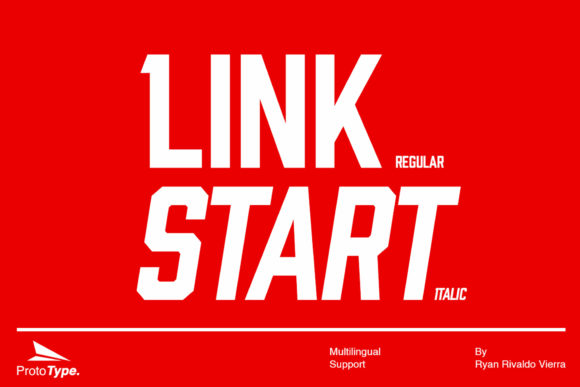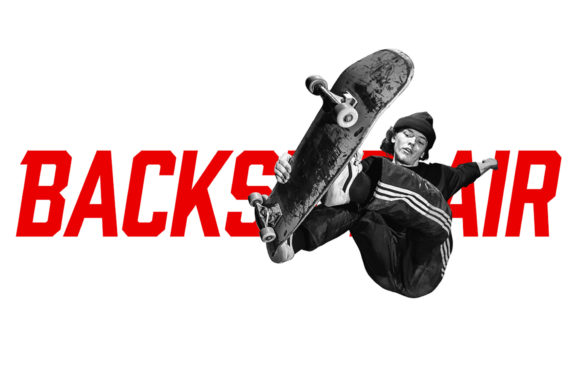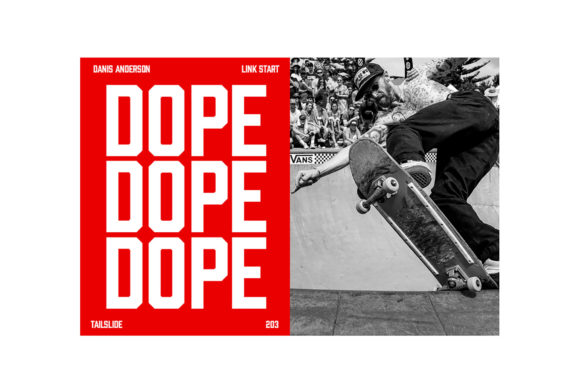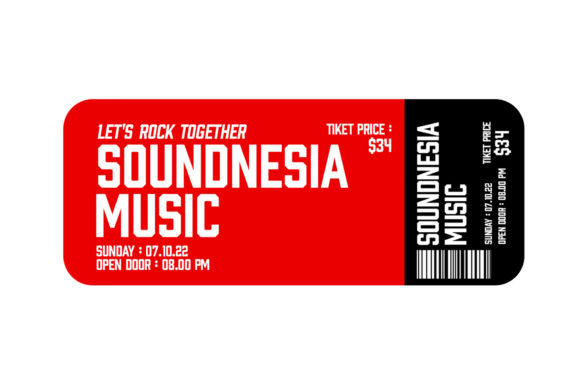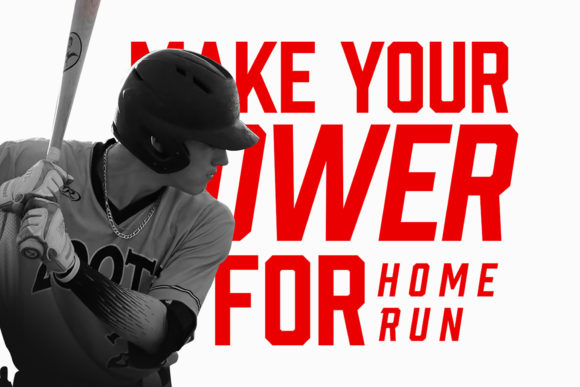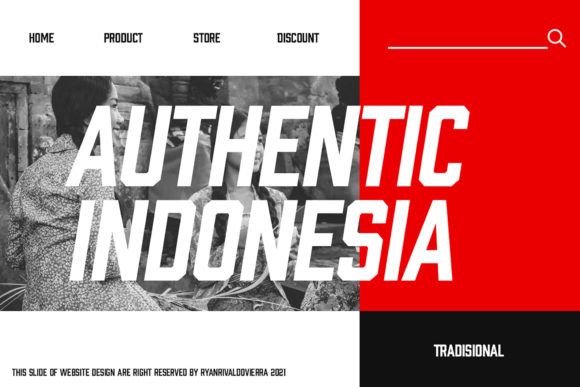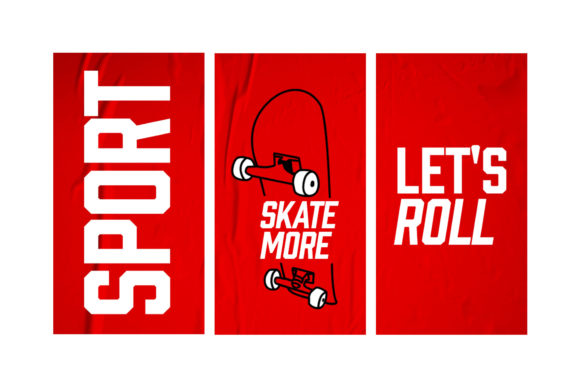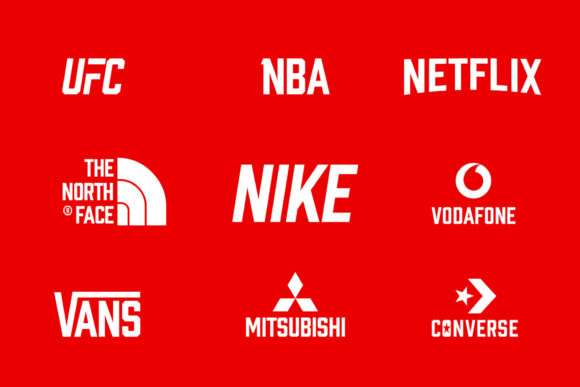
Link Start
Link Start: A Cool and Modern Slab Serif Font
Link Start is a distinctive slab serif font that combines coolness with thick letterforms and a modern aesthetic. This versatile typeface is particularly well-suited for designs related to speed, power, and sports.
Key Features of Link Start
• Cool Design: Offers a trendy and appealing look that resonates with modern design trends.
• Thick Letters: Features bold, substantial characters for maximum visual impact.
• Modern Aesthetic: Provides a contemporary style suitable for current design needs.
• Slab Serif Structure: Incorporates the characteristic thick, rectangular serifs typical of slab serif fonts.
• Versatile Application: Especially effective for speed, power, and sports-related designs.
Ideal Uses for Link Start
Link Start’s unique characteristics make it particularly well-suited for:
• Sports team branding and merchandise
• Racing and automotive designs
• Energy drink and supplement packaging
• Fitness and gym-related graphics
• Action sports event promotions
• Tech and gaming industry designs
When incorporating Link Start into your designs, consider these tips:
• Use for headlines or short blocks of text to maximize its cool and powerful impact
• Experiment with different sizes to highlight the font’s thick, modern details
• Take advantage of its suitability for speed and sports-themed projects
Link Start is an excellent choice for designers looking to add a cool, modern slab serif font to their typographic toolkit. Its thick letterforms and contemporary style make it stand out in the world of typography. Whether you’re working on logo designs for sports teams, creating layouts for racing events, or developing content that requires a powerful and dynamic presence, Link Start offers the perfect blend of coolness and modernity.
Add Link Start to your creative projects and prepare to be amazed by the final results. From eye-catching sports branding to impactful racing graphics, this font provides the tools to create memorable typography that resonates with audiences seeking a cool and energetic aesthetic. It’s versatile enough to be used in various contexts, from vintage-inspired designs with a modern twist to more playful layouts that need a touch of power and speed.
Whether you’re creating a dynamic and high-energy atmosphere for sports-related content or aiming for a more powerful and impactful mood in your designs, Link Start can adapt to your needs. Its flexibility allows it to work well in both bold, modern projects and contemporary designs that require a strong typographic presence. For those looking to add a touch of speed and power with a cool, modern feel, this font can even enhance themed creations with a unique, energetic twist.